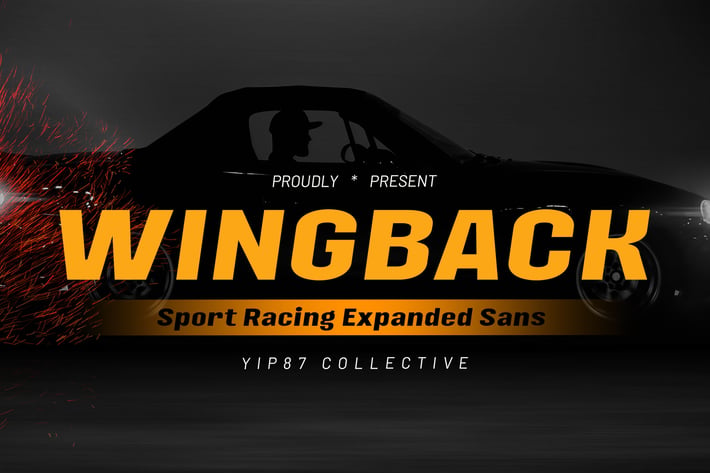
Wingback - Modern Racing Sport Game Bold Logo Font
Wingback - Modern Racing Sport Game Bold Italic Sans - Soccer and Football Logo Font
Wingback is a dynamic sport and racing font that exudes energy and speed. Its bold letterforms and sharp edges are reminiscent of the adrenaline-fueled world of motorsports. Designed for sports-related projects, perfect for branding, signage, and merchandise associated with racing events, teams, and athletic activities. Elevate your branding design projects with Wingback Font today.